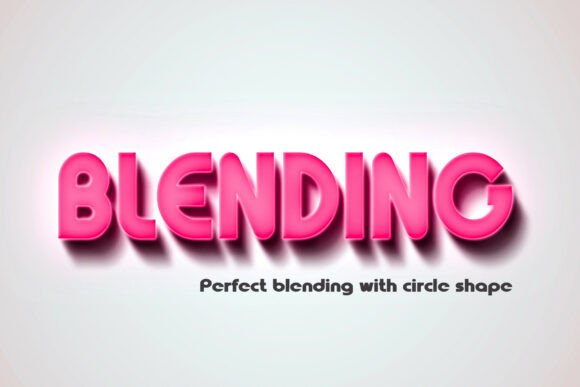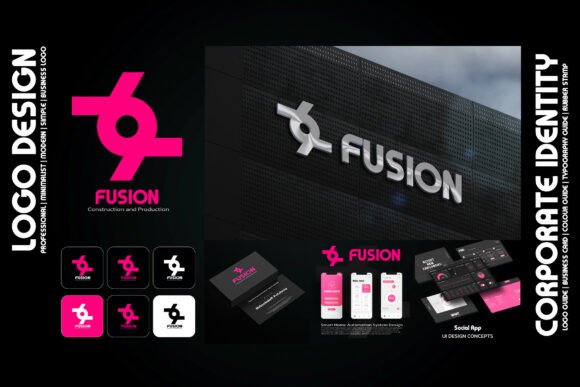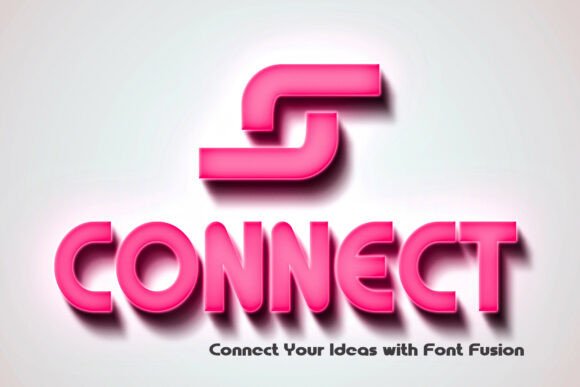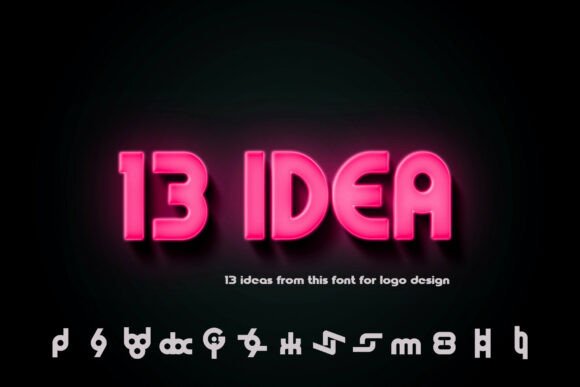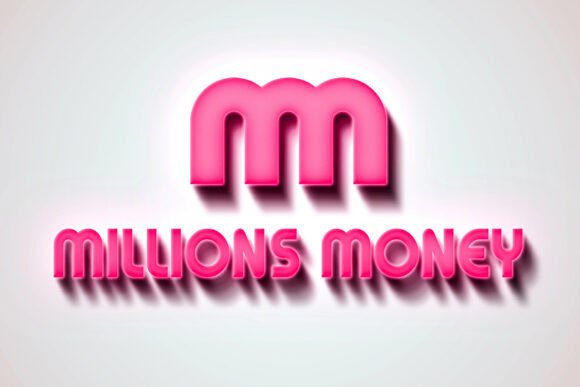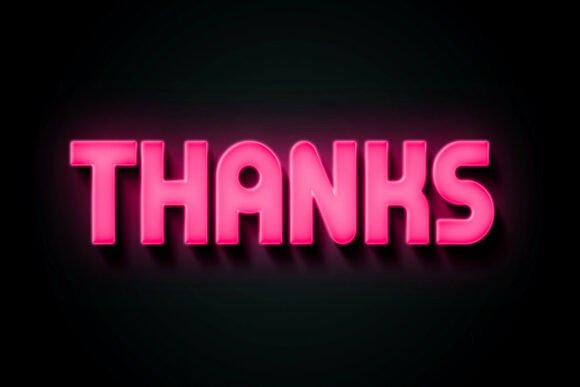
Introduction to Fusion Font
Fusion is a creative Fusion font featuring a Minimal-style display with only straight lines and circles.
It incorporates redesigned luxury and even includes Modern You can create new logos with this font.
Key Features of Fusion Font